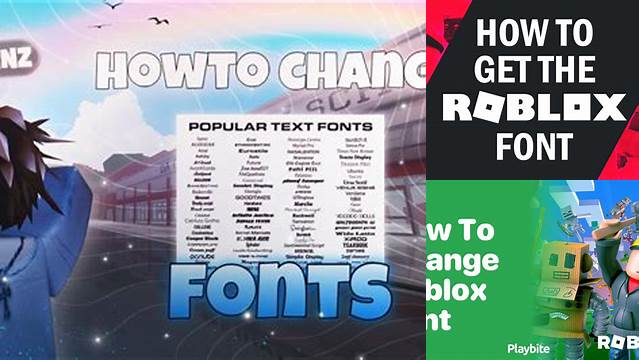
Use Fonts On Roblox Mobile: A Complete Guide
Hey guys! Ever wondered how to use fonts on Roblox mobile to make your in-game text pop or personalize your game's UI? You're in the right place! While Roblox's mobile platform has some limitations compared to its desktop counterpart, there are still ways to get creative with fonts and make your game stand out. In this comprehensive guide, we'll dive deep into the world of Roblox fonts on mobile, exploring what's possible, the limitations you might face, and step-by-step instructions to help you achieve your desired look. Whether you're a seasoned developer or just starting out, understanding how fonts work on Roblox mobile is crucial for creating engaging and visually appealing experiences for your players. We’ll cover everything from the basic font options available within Roblox Studio to more advanced techniques like using image labels and third-party tools. So, grab your phone, fire up Roblox Studio, and let's get started on this font-tastic journey! Remember, the right font can make all the difference in conveying your game's atmosphere and message, so let's make sure your text looks as awesome as your gameplay.
Understanding Roblox Mobile Font Limitations
Before we jump into the how-to, it's crucial to understand the Roblox mobile font limitations. Unlike the desktop version, Roblox mobile doesn't allow you to directly import custom fonts. This means you're limited to the fonts that are pre-installed in Roblox Studio. While this might sound restrictive, Roblox offers a decent selection of fonts that can cater to various styles and aesthetics. These fonts include classic options like Arial, Verdana, and Georgia, as well as more stylized choices that can add character to your game. The key here is to make the most of what you have. Think creatively about how you can use the existing font library to achieve the look and feel you're aiming for. Experiment with different sizes, weights (boldness), and colors to see how you can transform the same font into something unique. It’s also worth noting that the performance of your game on mobile devices is paramount. Using too many different fonts or overly complex text rendering can impact performance, especially on lower-end devices. Therefore, it's wise to keep your font choices streamlined and efficient. In the following sections, we’ll explore how you can work within these limitations and still create visually stunning text elements in your mobile games. We'll also touch on some clever workarounds that can help you push the boundaries of what's possible with fonts on Roblox mobile, so stay tuned!
Available Font Options in Roblox Studio for Mobile
Okay, so you know about the limitations, but what available font options in Roblox Studio for mobile do you actually have? Let’s break it down. Roblox Studio provides a range of built-in fonts that you can use for various UI elements, such as text labels, text boxes, and billboard GUIs. These fonts are designed to be visually appealing and perform well on mobile devices. Some of the most commonly used fonts include Arial, a clean and versatile sans-serif font that's great for readability; Verdana, another excellent sans-serif option with slightly wider characters, making it easy to read even at smaller sizes; and Georgia, a classic serif font that adds a touch of elegance and formality to your text. Beyond these, you'll find other options like SourceSans, a modern and clean sans-serif font that works well for a variety of applications, and SciFi, a more stylized font that's perfect for futuristic or tech-themed games. To access these fonts, simply select the text element you want to modify in Roblox Studio, and then look for the "Font" property in the Properties window. Clicking on the dropdown menu will reveal the list of available fonts. Experiment with different fonts to see how they look in your game. Consider the overall style and theme of your game when making your font choices. A horror game, for example, might benefit from a more stylized or grungy font, while a casual puzzle game might be better suited to a clean and simple font. In the next section, we’ll delve into the practical steps of changing fonts in Roblox Studio and provide some tips on how to make your text elements look their best.
Step-by-Step Guide: Changing Fonts on Roblox Mobile
Now, let’s get practical! Here’s a step-by-step guide on changing fonts on Roblox mobile within Roblox Studio. Don't worry, it's a straightforward process, and once you get the hang of it, you'll be changing fonts like a pro.
Open Roblox Studio: First things first, fire up Roblox Studio on your computer. Remember, you'll need a desktop or laptop to develop your game, even if it's intended for mobile.
Create or Open Your Project: Either start a new project or open an existing one that you want to work on.
Add a Text Element: To add text to your game, you'll need to insert a TextLabel, TextBox, or BillboardGui. You can do this by clicking the "Insert" tab at the top of the Studio window, then selecting the desired text element from the dropdown menu.
Select the Text Element: In the Explorer window (usually on the right side of the screen), find the text element you just added and click on it to select it.
Open the Properties Window: If the Properties window isn't already open, you can open it by clicking the "View" tab at the top of the Studio window and then selecting "Properties."
Find the Font Property: In the Properties window, scroll down until you see the "Font" property. It's usually located under the "Text" category.
Choose Your Font: Click on the dropdown menu next to the "Font" property. This will display a list of available fonts. Click on the font you want to use.
Adjust Other Properties: Once you've selected a font, you can further customize its appearance by adjusting other properties such as "FontSize," "TextColor3," "TextStrokeColor3," and "TextStrokeThickness." Experiment with these properties to achieve the desired look.
Test on Mobile: To see how your font looks on a mobile device, you can use Roblox Studio's device emulator or publish your game and test it directly on your phone or tablet. Testing on an actual device is always recommended for the most accurate representation. And that's it! You've successfully changed the font on your Roblox mobile game. In the next section, we’ll explore some advanced techniques and workarounds for getting even more creative with fonts.
Advanced Techniques and Workarounds for Fonts on Roblox Mobile
So, you've mastered the basics, but what if you want to go beyond the built-in fonts? Let's explore some advanced techniques and workarounds for fonts on Roblox mobile. While you can't directly import custom fonts, there are clever ways to achieve unique text effects and styles.
Image Labels: One popular technique is to create your text using a graphics editor like Photoshop or GIMP and then import it as an image label. This gives you complete control over the font, style, and appearance of your text. To do this, create your text in the graphics editor, save it as a PNG file (to preserve transparency), and then upload it to Roblox as an image. You can then use an ImageLabel GUI element to display the text in your game. Keep in mind that this method can be more memory-intensive than using built-in fonts, so use it sparingly, especially on mobile.
Text Effects with Code: Another approach is to use scripting to create text effects. For example, you can write a script that changes the color or size of individual letters or adds a gradient effect to your text. This requires some coding knowledge but can result in visually stunning and dynamic text elements.
So there you have it, guys! A comprehensive guide on how to use fonts on Roblox mobile. We've covered everything from understanding the limitations to exploring advanced techniques and best practices. Remember, while Roblox mobile might not offer the same level of font customization as the desktop version, there are still plenty of ways to get creative and make your game's text look amazing. The key is to understand the available options, experiment with different techniques, and always prioritize readability and performance. Whether you're creating a sprawling RPG, a fast-paced action game, or a relaxing puzzle experience, the right fonts can make all the difference in engaging your players and bringing your vision to life. So, go forth, experiment, and create some font-tastic games on Roblox mobile! And don't forget to share your creations with the community – we're always excited to see what you come up with! Happy developing!